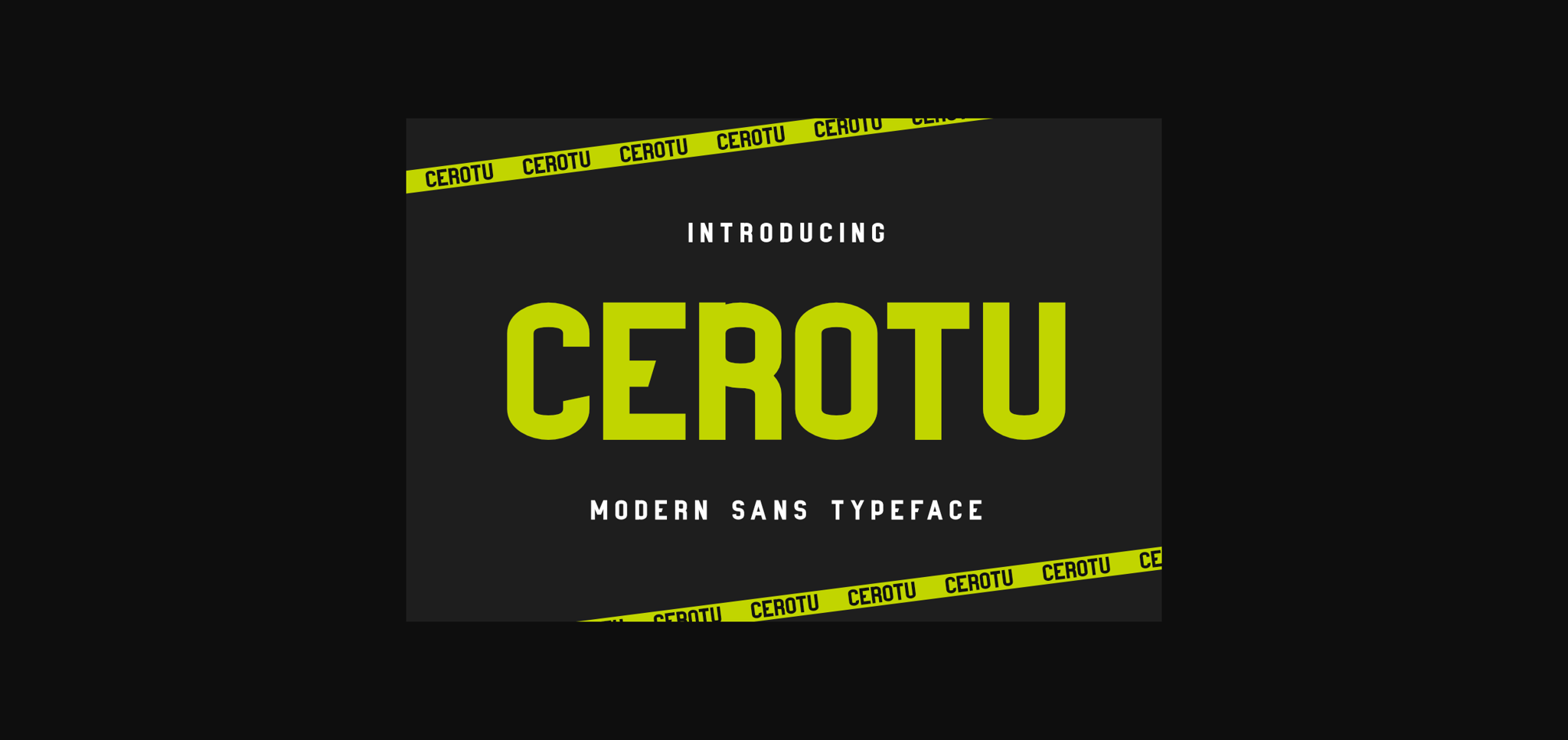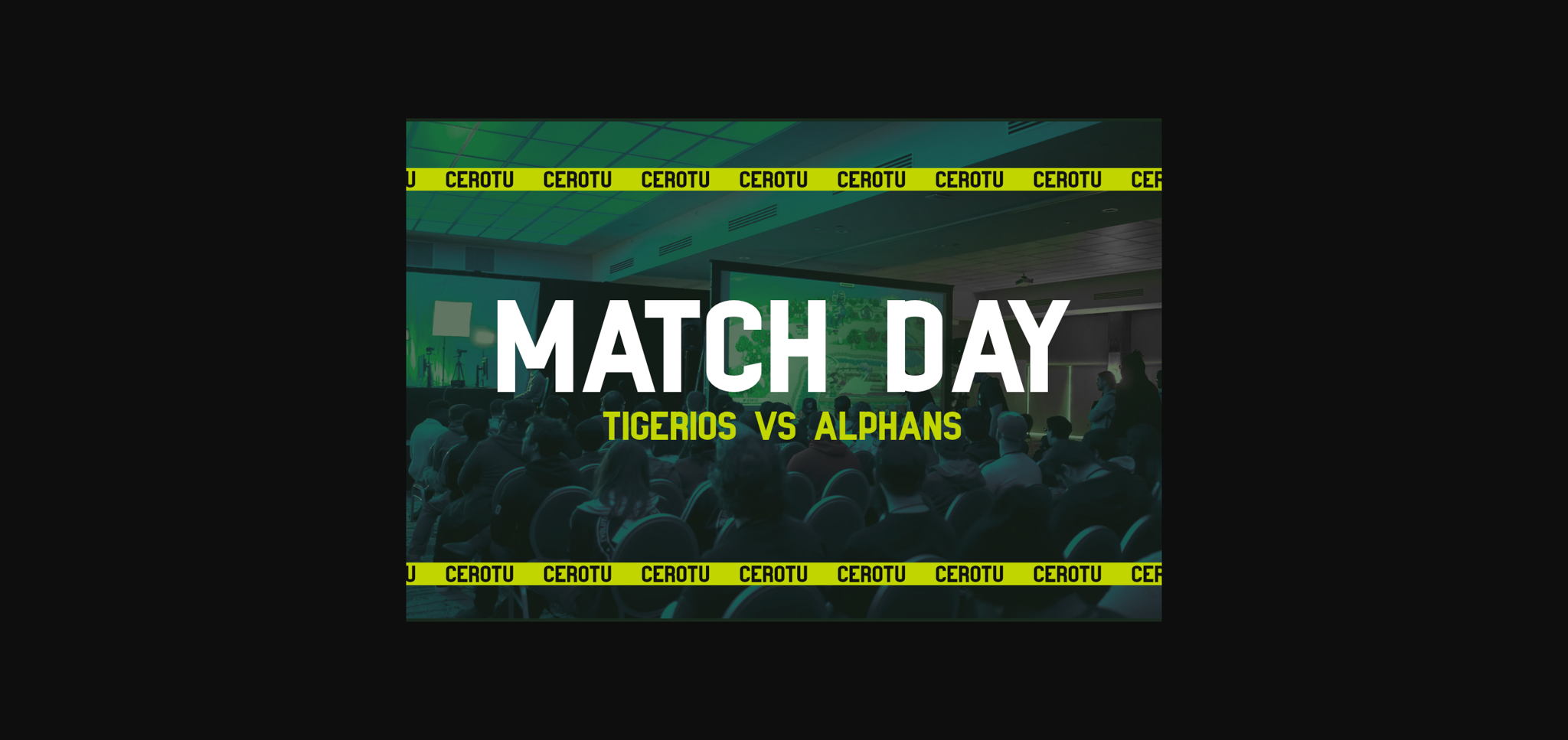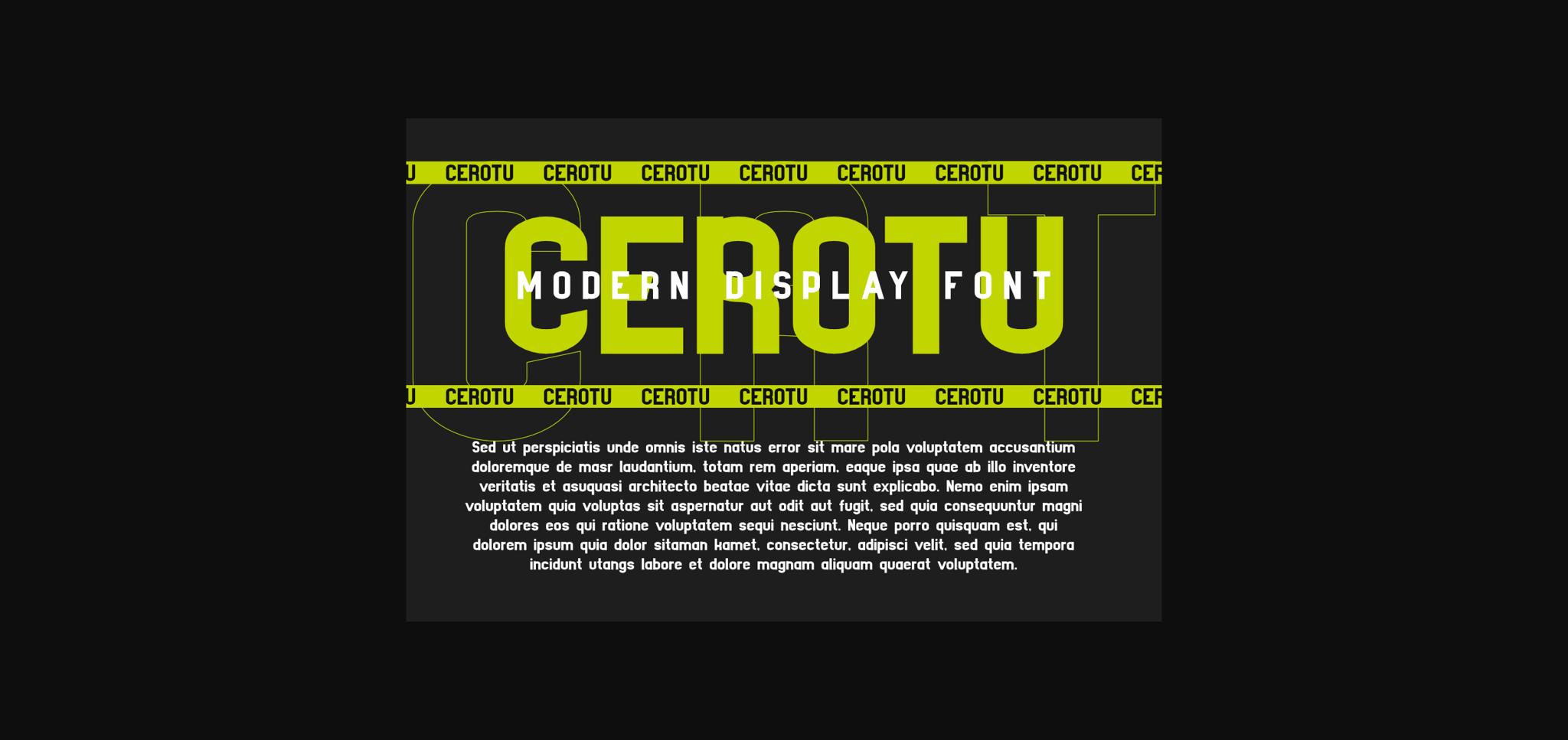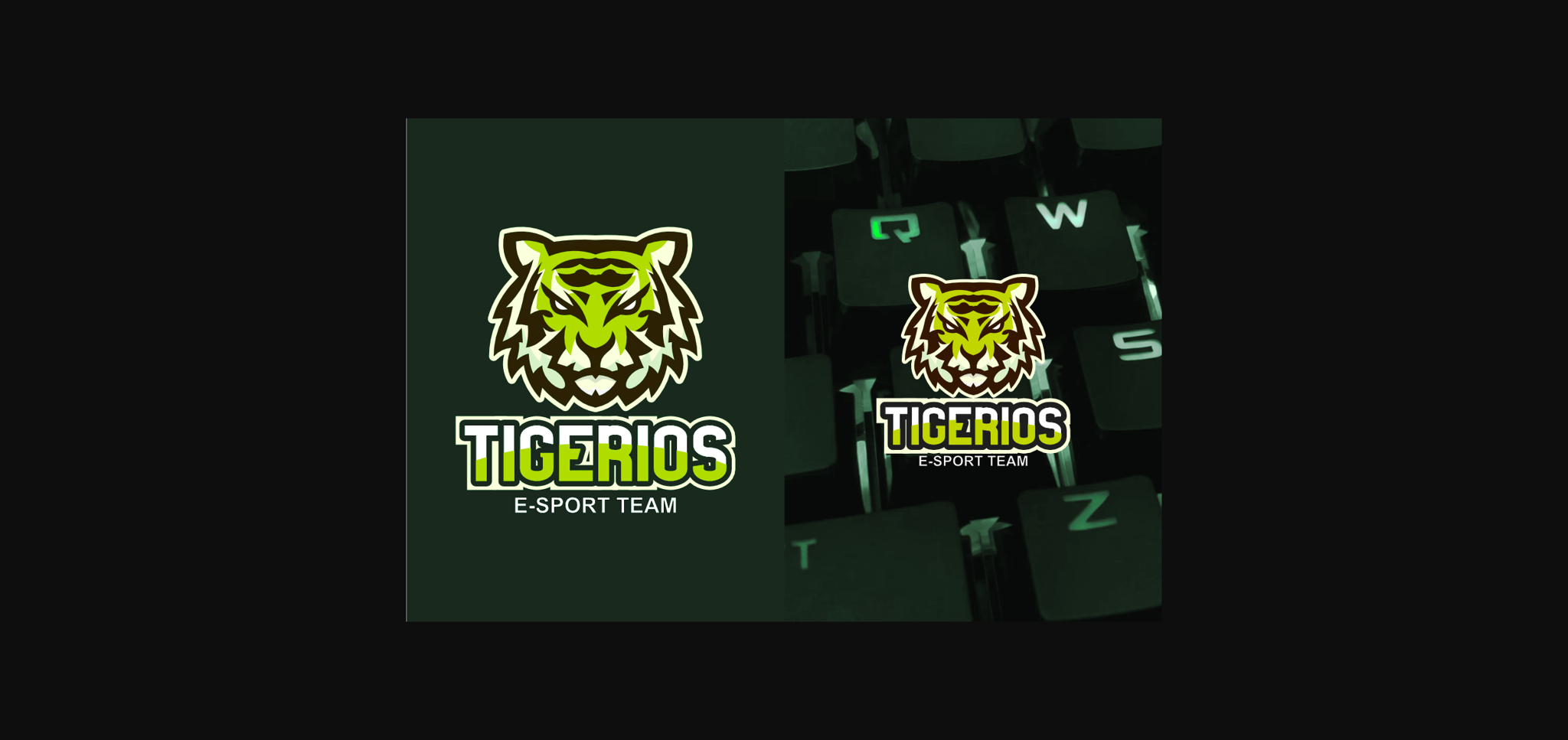
About Cerotu Font
Cerotu is a modern sans serif display font with a sporty and modern style. This font is suitable for crafts, headlines, branding, business, print, t-shirts, apparel, Cricut, silhouettes and other creative ideas!